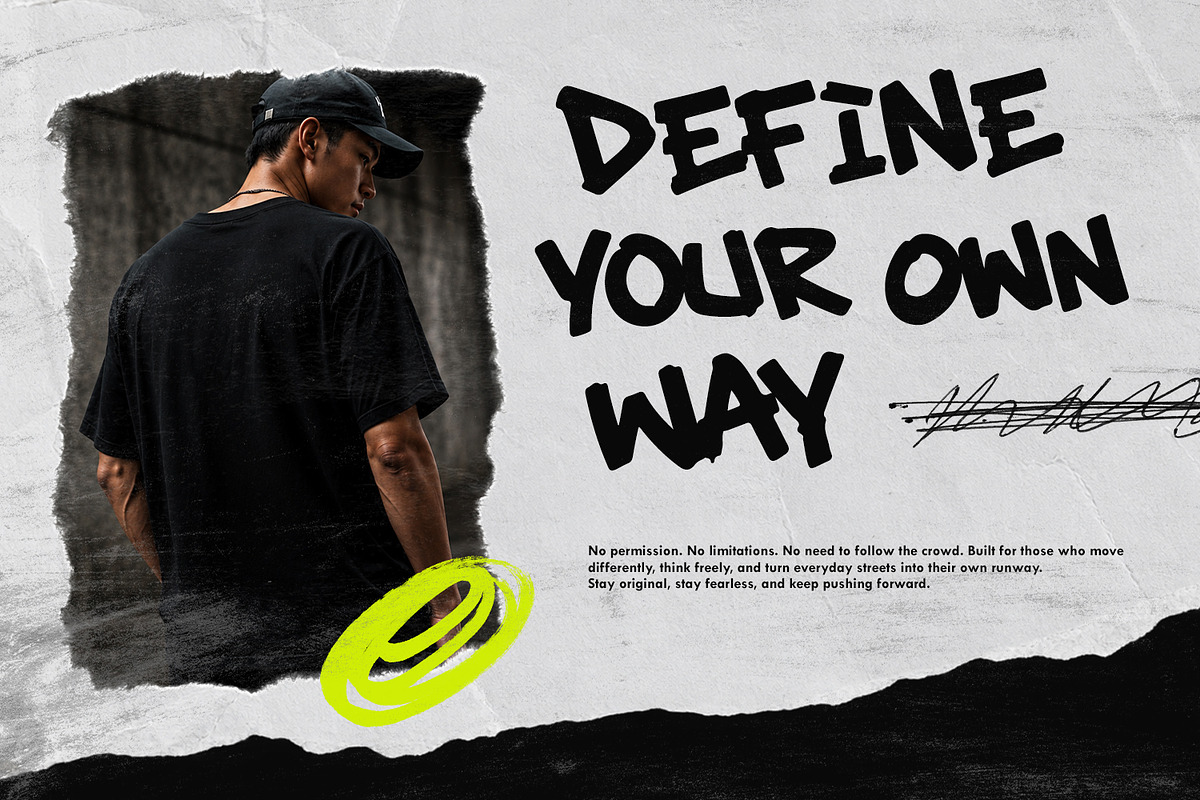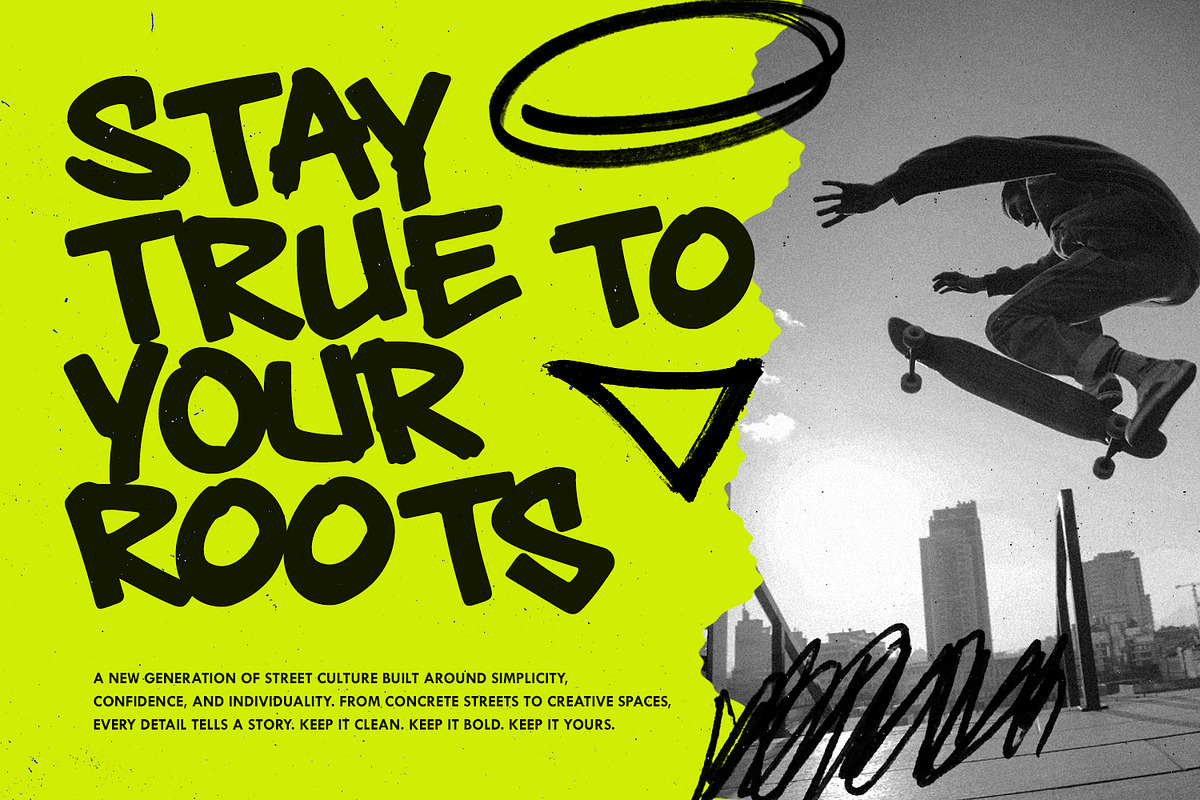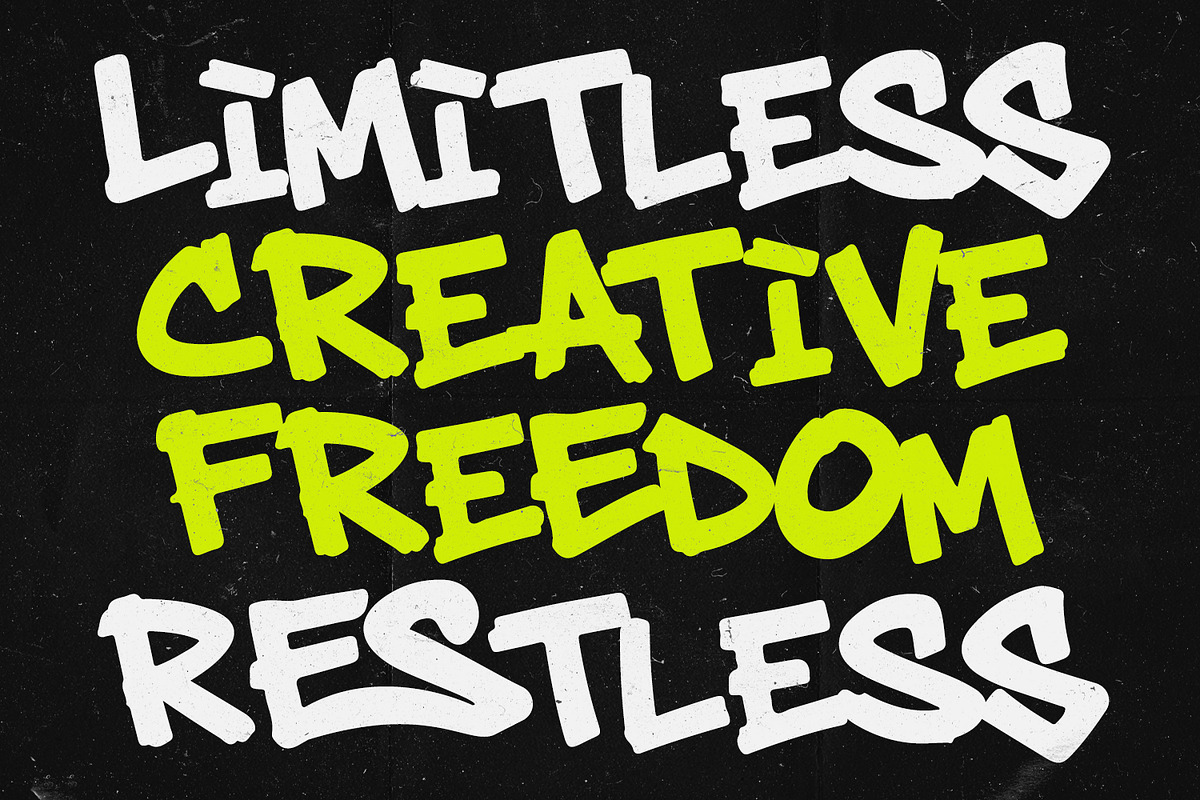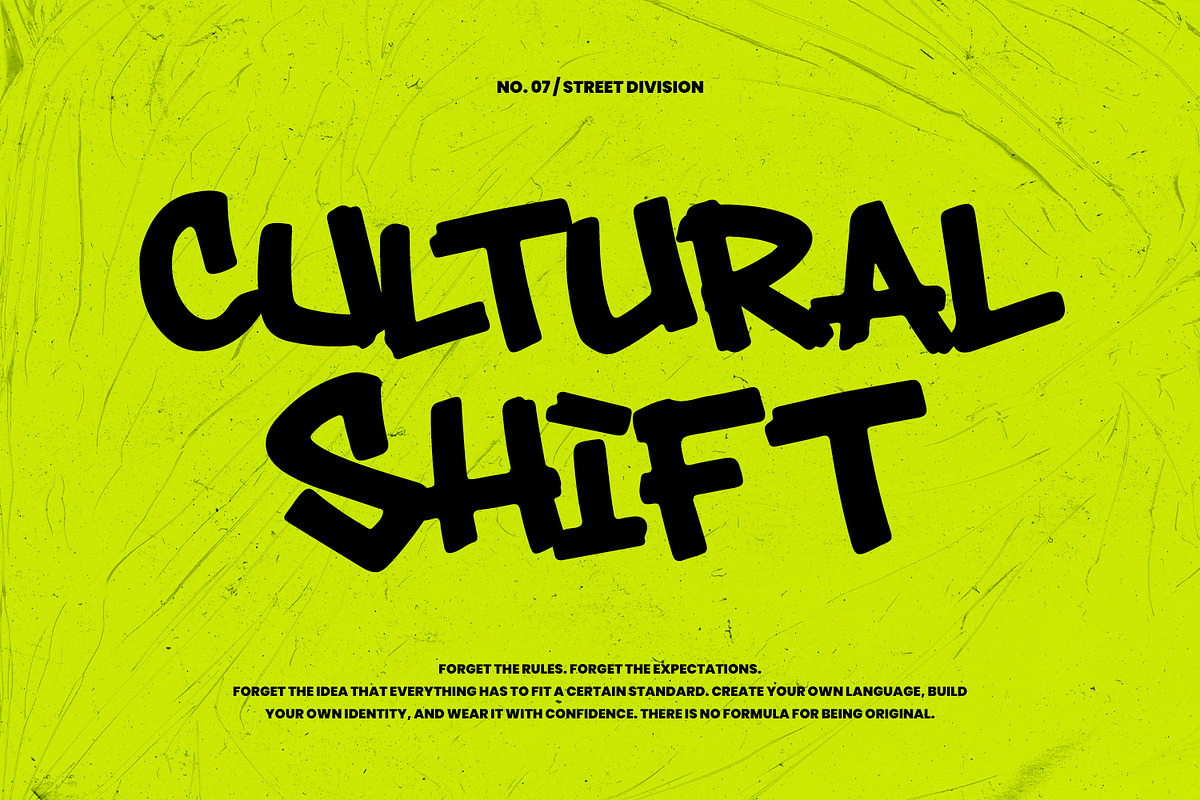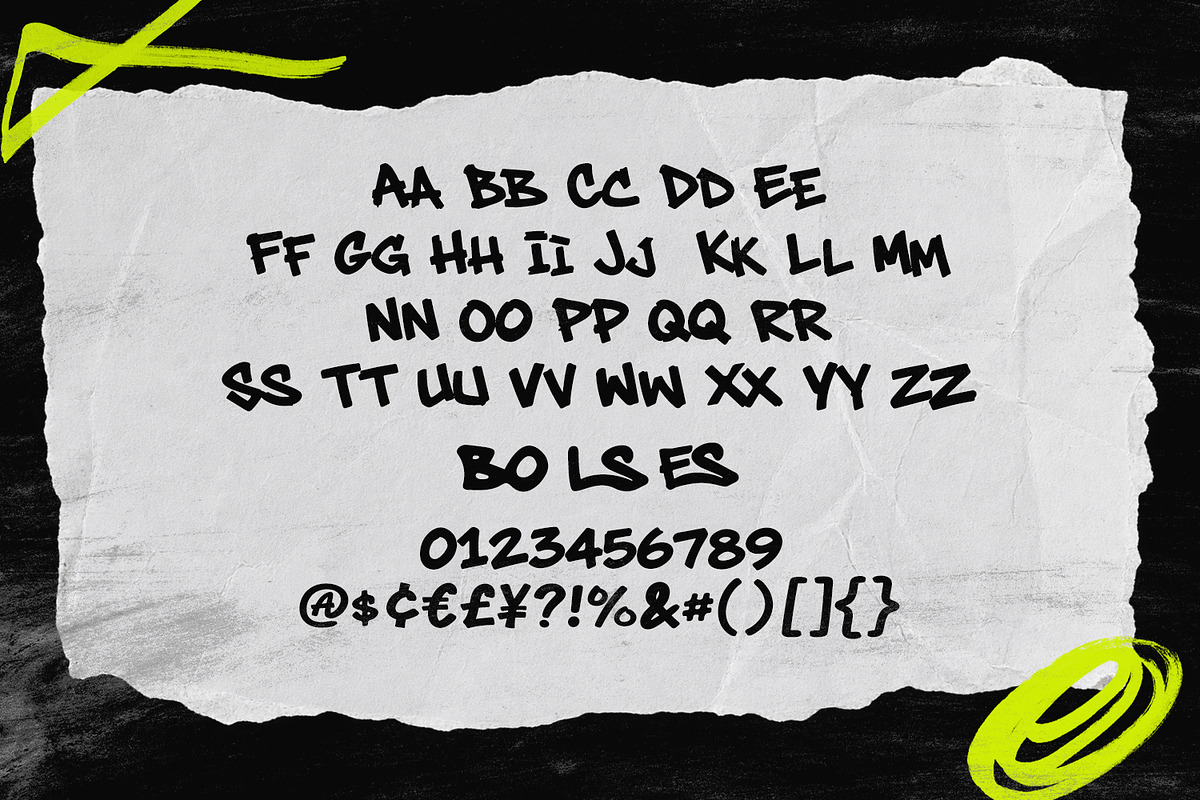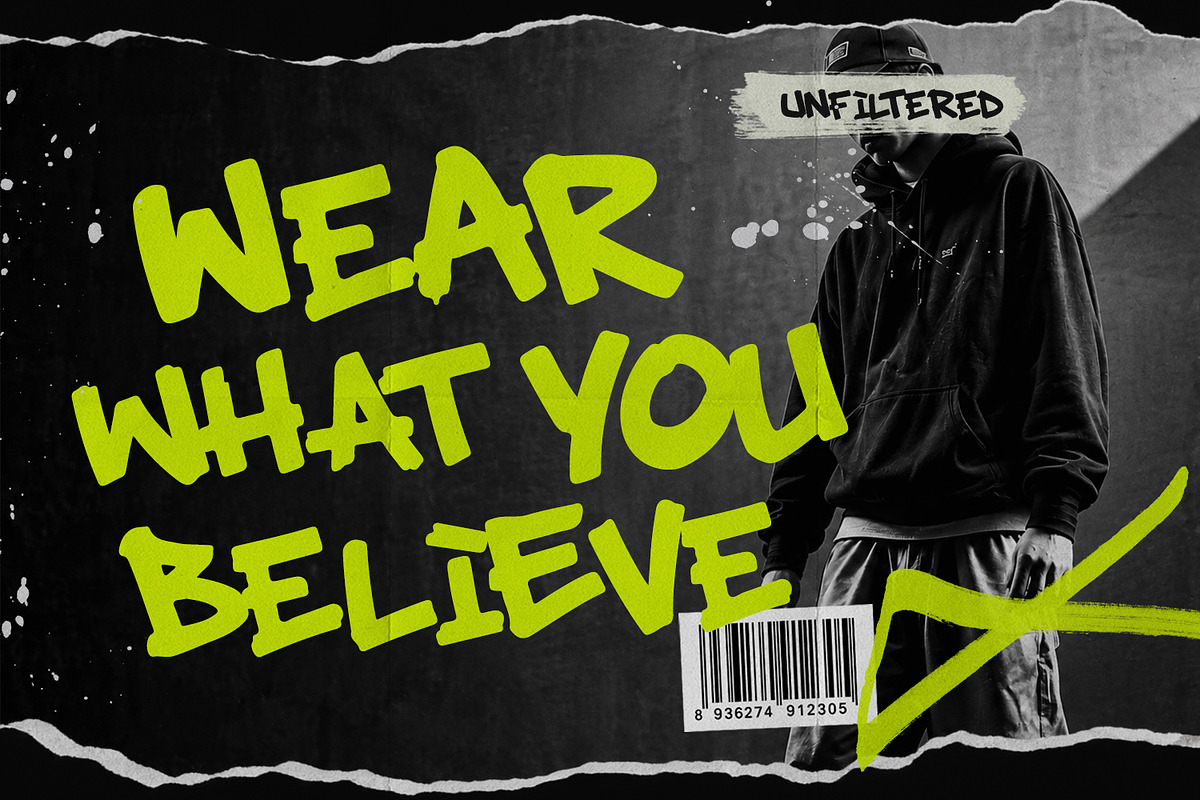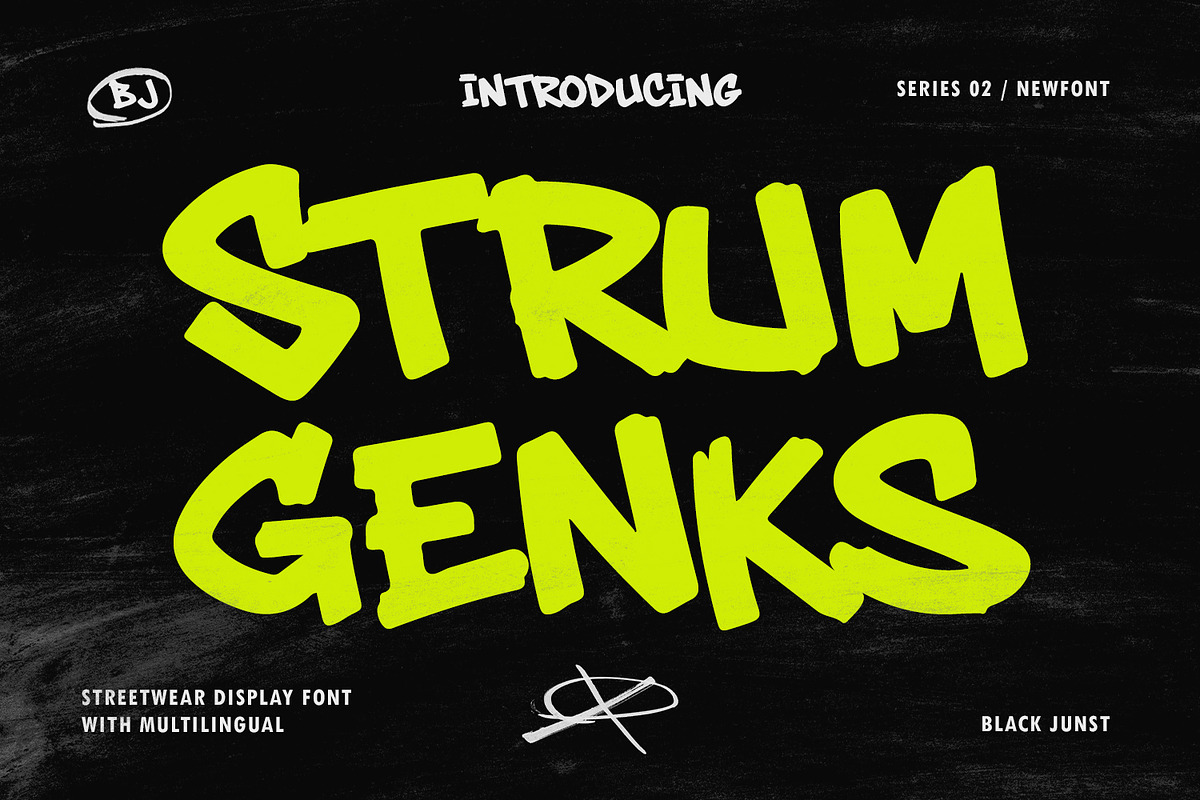
Strum Genks – Graffiti Display
Strum Genks – Graffiti Display Font
Strum Genks is a bold graffiti display font created for designers who want raw street energy, expressive lettering, and an authentic urban attitude. Its chunky hand-drawn shapes, irregular curves, and dynamic forms create a powerful visual impact that instantly grabs attention.
Inspired by graffiti lettering, street culture, urban fashion, and contemporary hand-drawn typography, Strum Genks works especially well for projects that need a rebellious and energetic personality.
Perfect for streetwear branding, clothing designs, apparel graphics, logo design, posters, music artwork, album covers, skate graphics, stickers, merchandise, packaging, social media designs, event graphics, and bold headlines.
The strong display character makes Strum Genks especially effective for large typography where the lettering becomes the main visual element.
Bold graffiti-inspired display style
Hand-drawn and organic letterforms
Raw urban and streetwear aesthetic
Strong visual impact for large typography
Suitable for print and digital projects
Strum Genks is a great choice for designers, clothing brands, creative studios, musicians, and entrepreneurs looking for a bold graffiti font with a modern streetwear attitude.